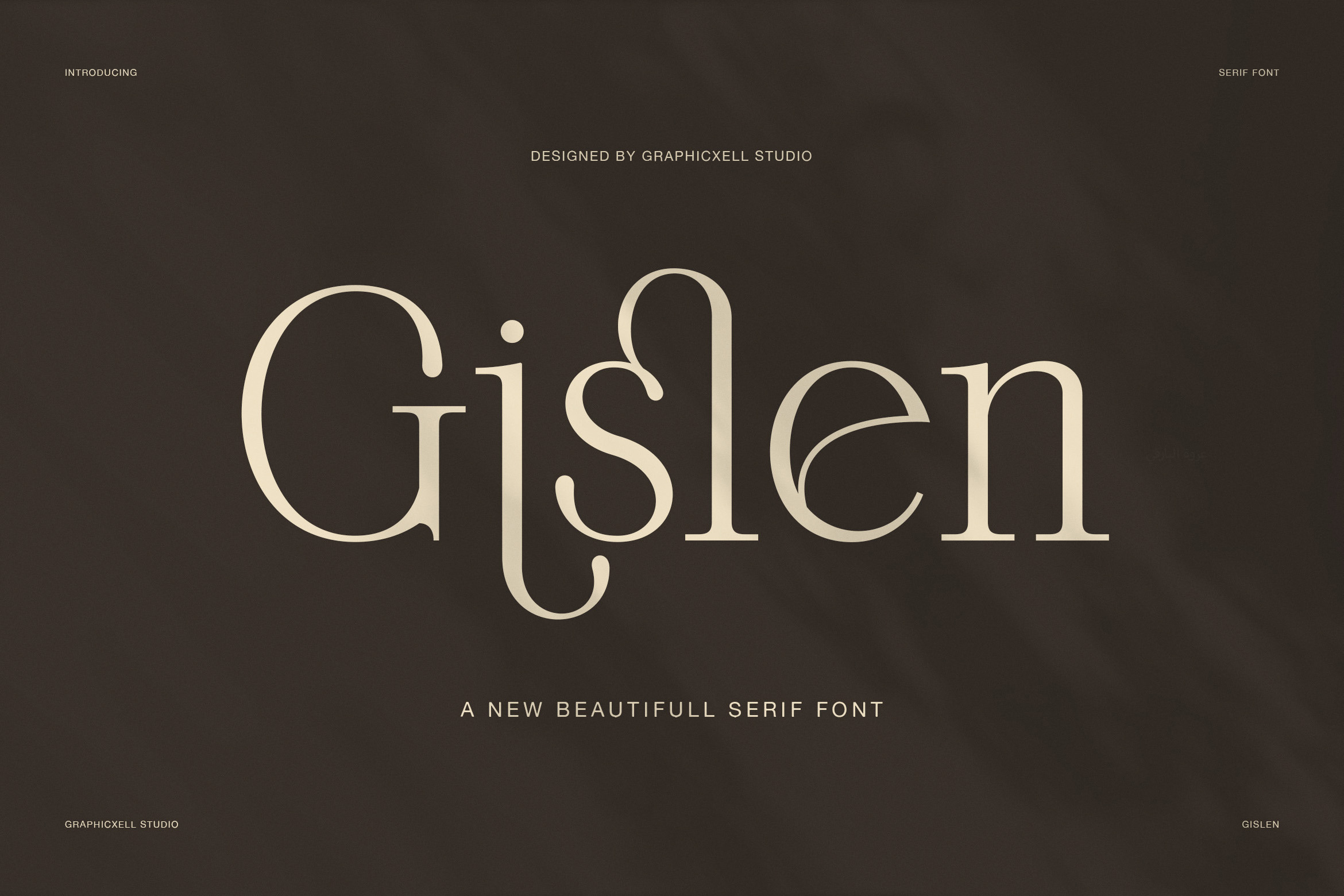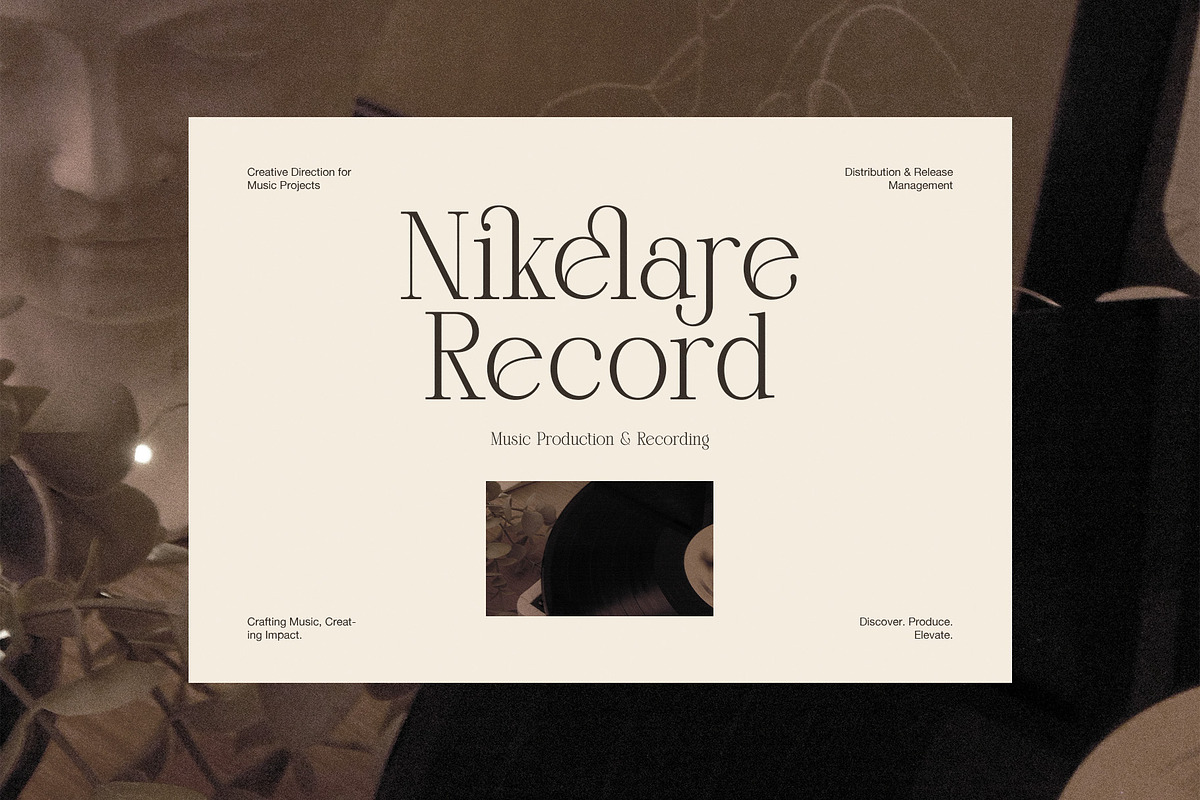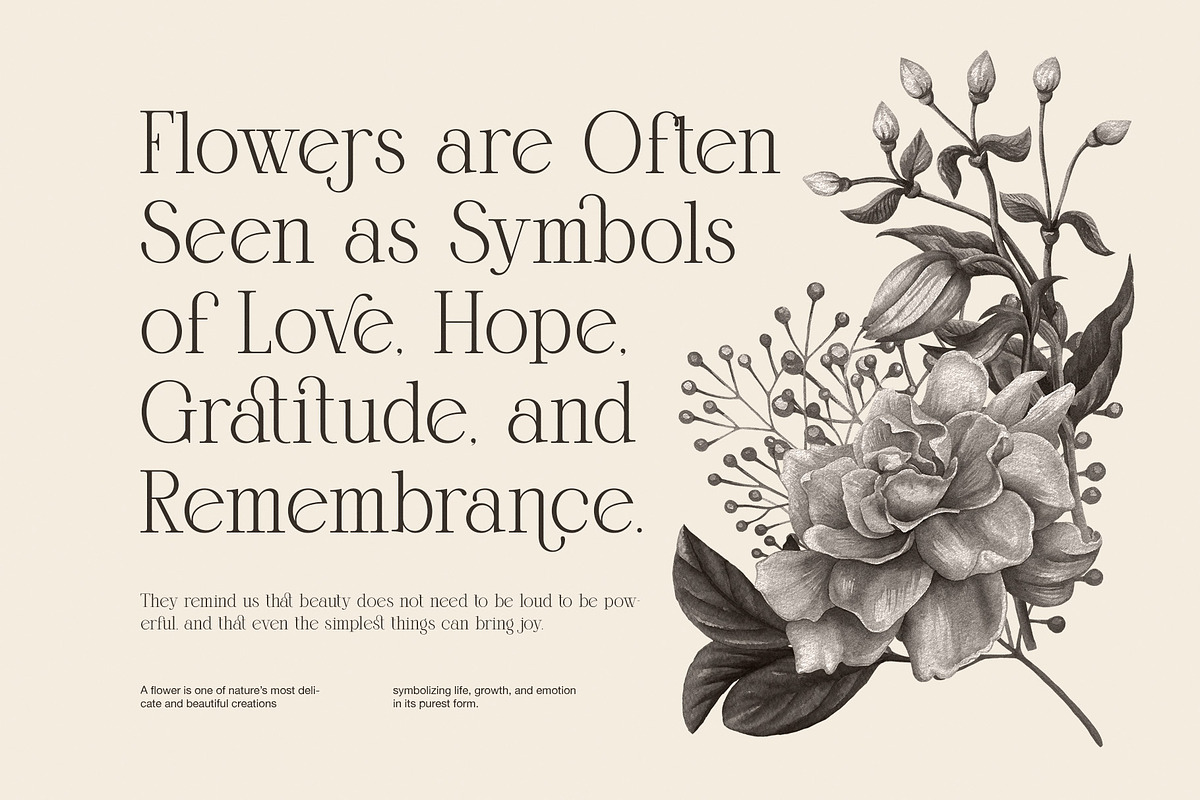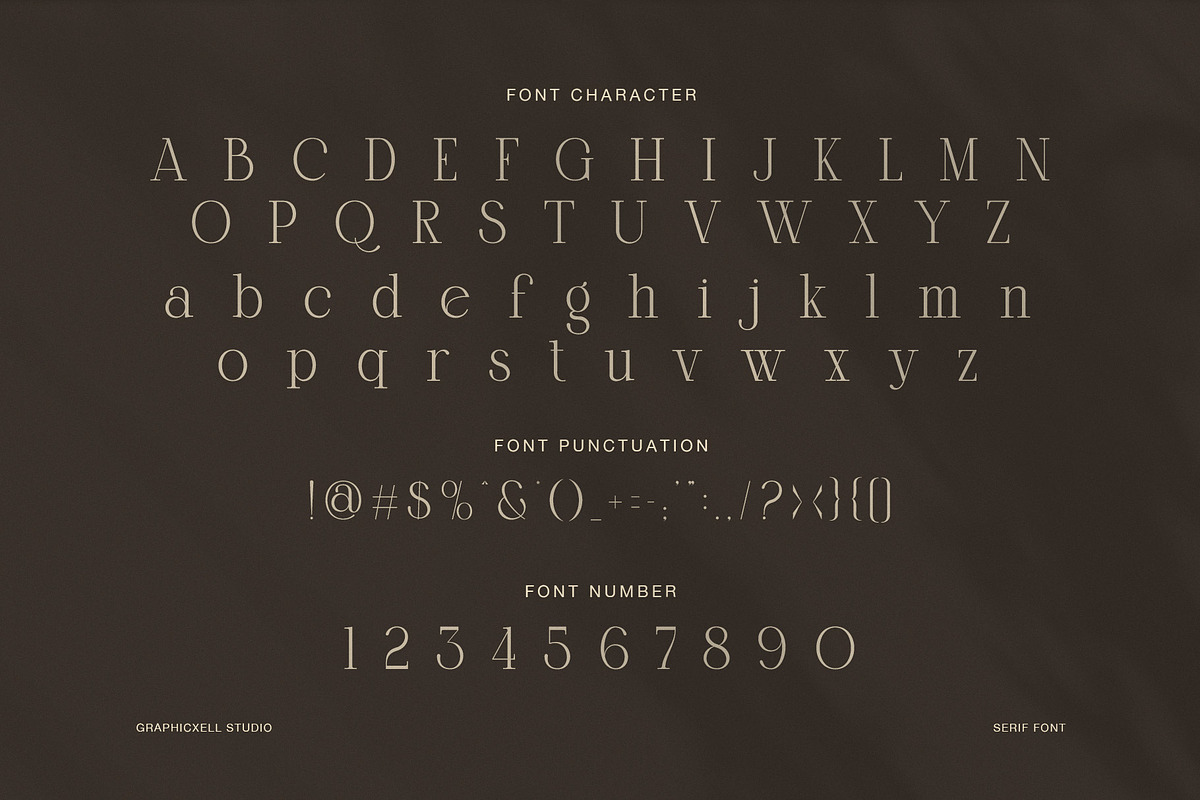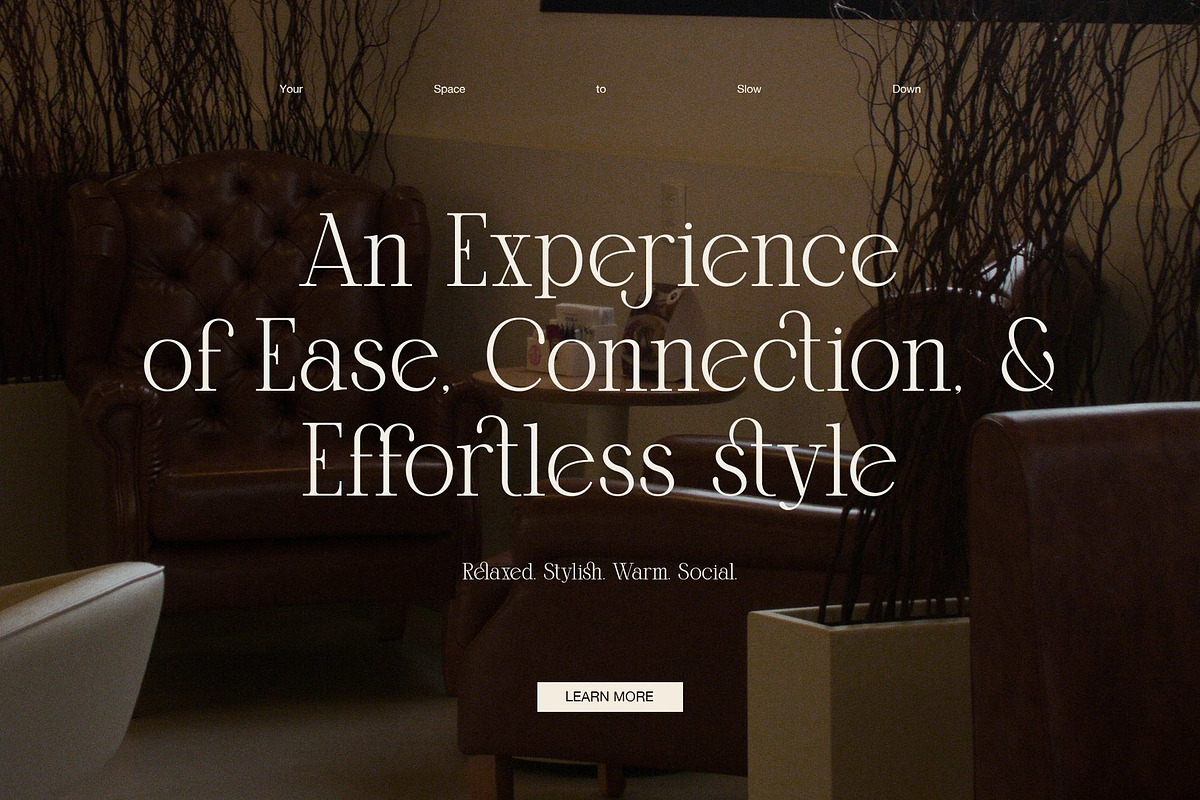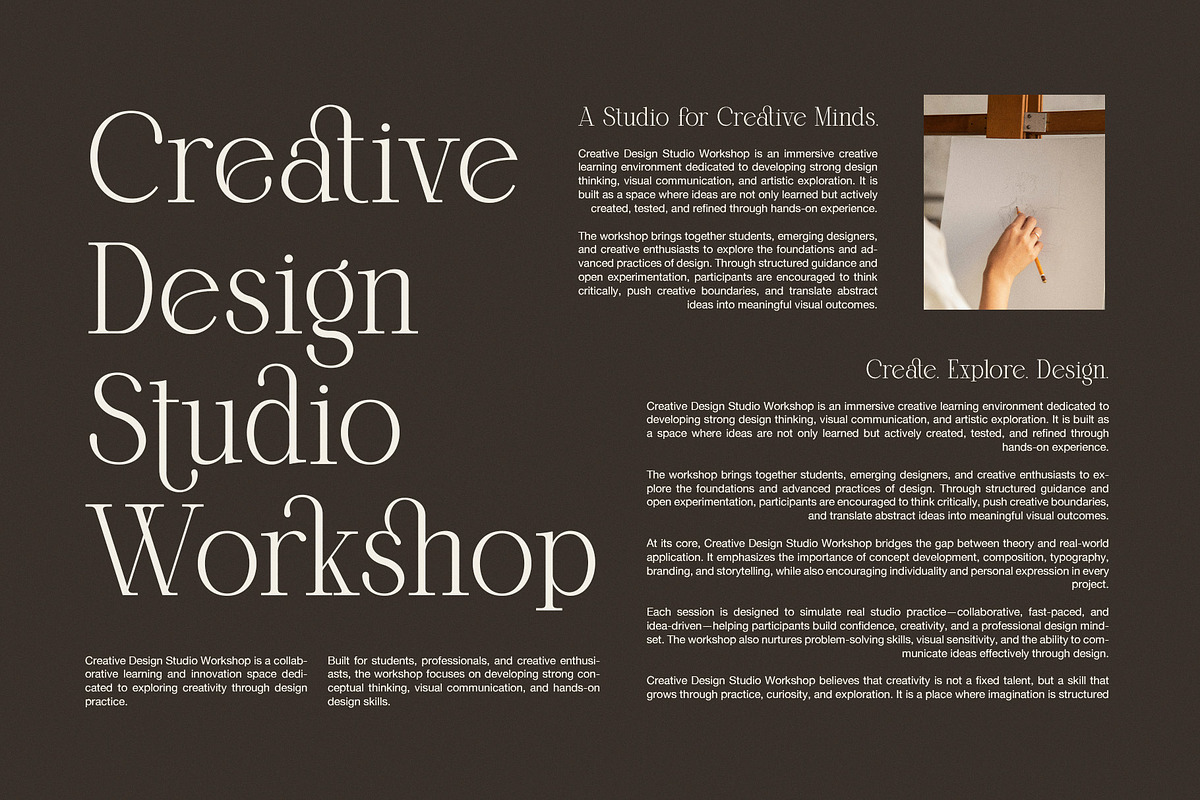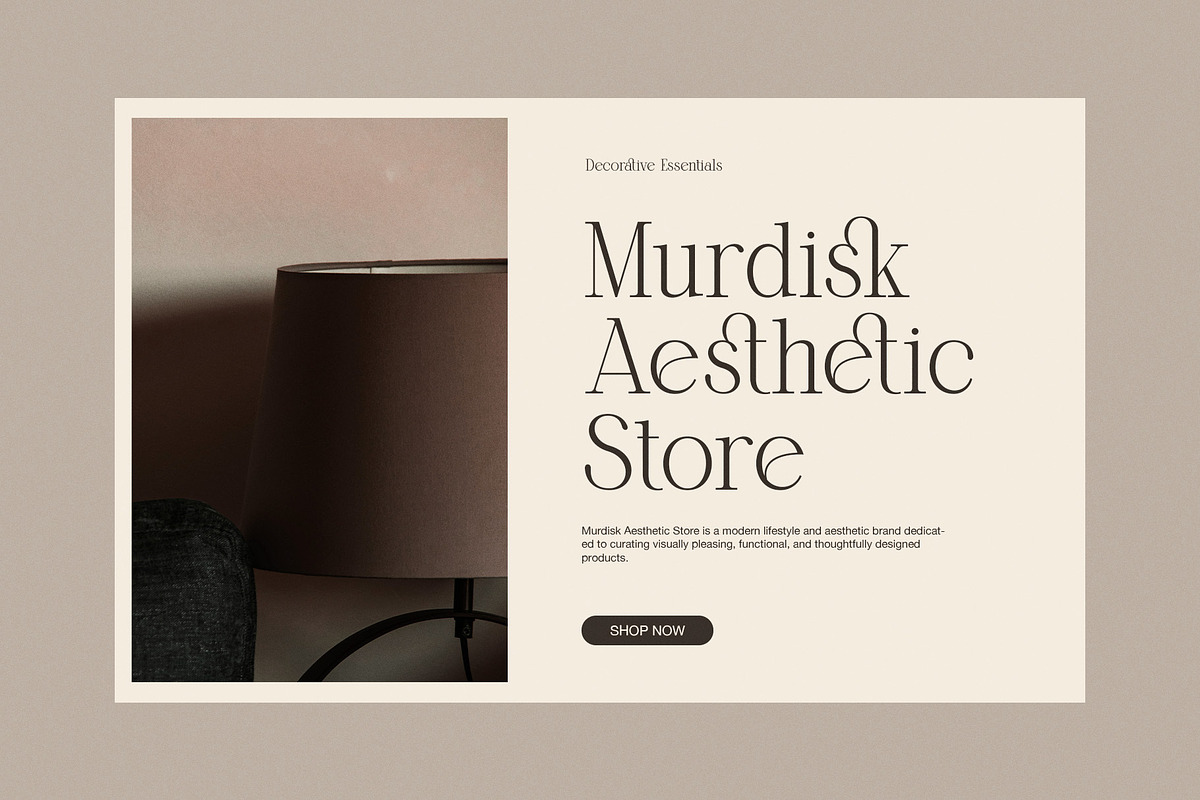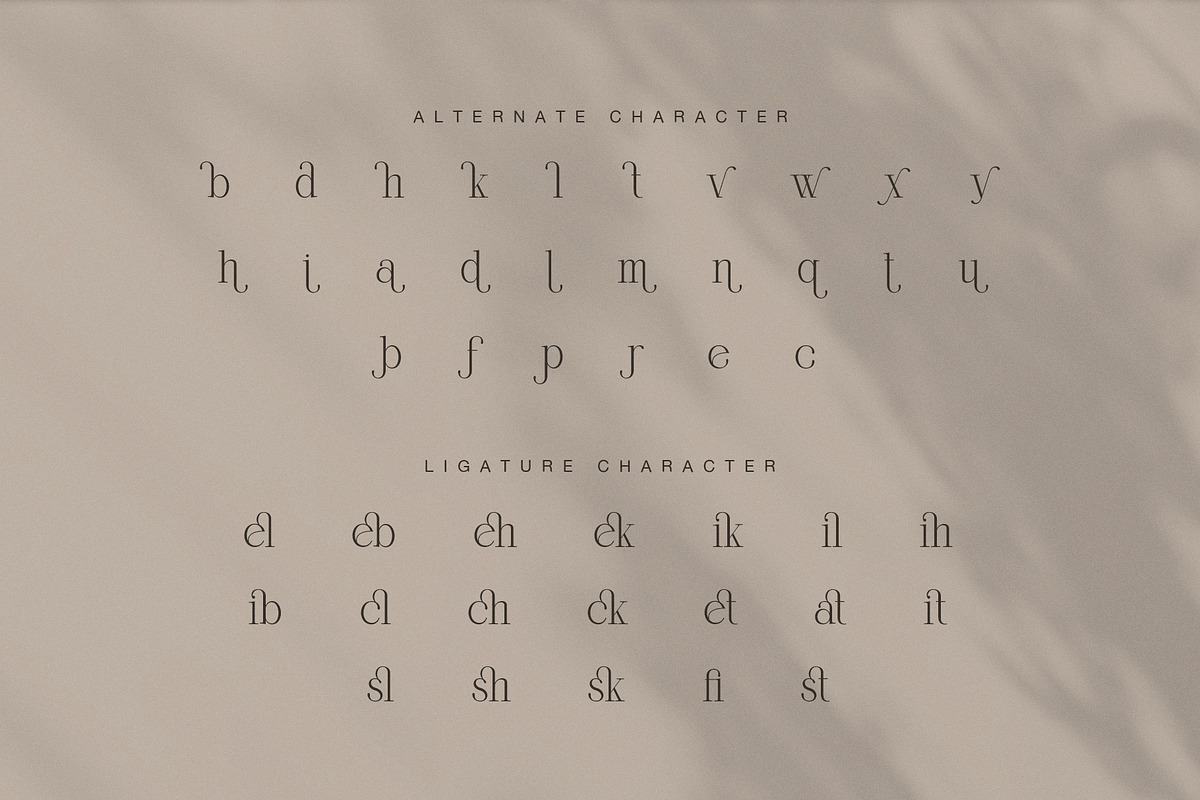
Gislen Elegant Serif Font
Gislen Elegant Serif Font is a refined display serif that blends softness, grace, and quiet luxury. It has a light structure, delicate contrast, and flowing curves that give every word a calm yet expressive look. At first sight, it feels minimal and polished. Then, as you explore more, its alternates and ligatures reveal a more artistic side. Because of that balance, Gislen works well for designers who want beauty without excess.
This font stands out through its slender serif forms and clean rhythm. The letterforms feel airy and graceful, while the decorative alternates add a charming handmade touch. As a result, titles look elegant, logos feel more personal, and branding gains a stronger visual mood. In addition, the ligatures help words look smooth and connected, so layouts feel more curated and premium.
Gislen is ideal for display use. For example, it fits fashion branding, beauty packaging, interior design, floral concepts, wedding stationery, editorial layouts, café menus, and lifestyle campaigns. Likewise, it works beautifully for social media posts, product labels, lookbooks, magazines, and boutique identities. Since the style is clean but expressive, the font can move between modern and classic with ease.
Another strength of Gislen is its versatility in mood. It can feel romantic in soft neutral branding, yet it can also feel contemporary in bold editorial design. Moreover, it pairs nicely with clean sans serif fonts, muted color palettes, film photography, and minimal layouts. Therefore, designers can use it to build a brand image that feels calm, tasteful, and memorable.
Why designers may choose Gislen:
Elegant serif style with a delicate display look
Beautiful alternates for more expressive typography
Ligatures that create smooth and polished word shapes
Light structure with a refined and airy feel
Ideal for fashion, beauty, editorial, and lifestyle design
Great for logos, packaging, branding, and invitations
Overall, Gislen Elegant Serif Font is made for projects that need subtle charm and premium style. It is graceful, clean, and artistic at the same time. Therefore, if you need an elegant serif font with alternates and ligatures for branding or editorial work, Gislen offers a timeless and tasteful result.